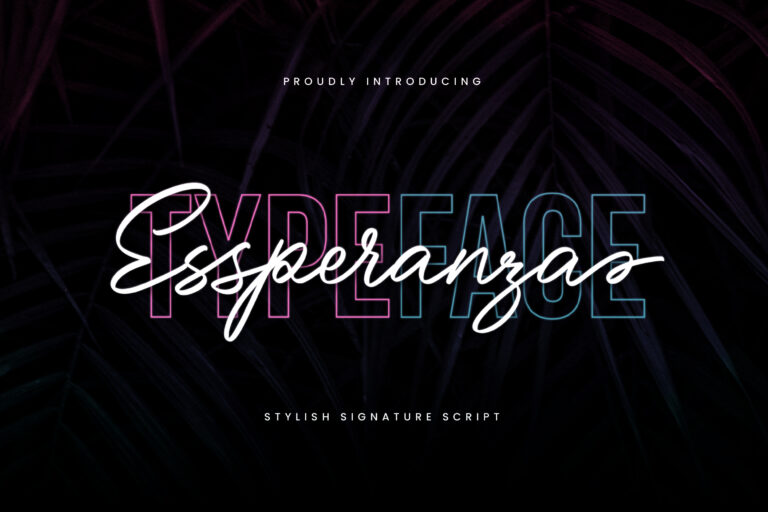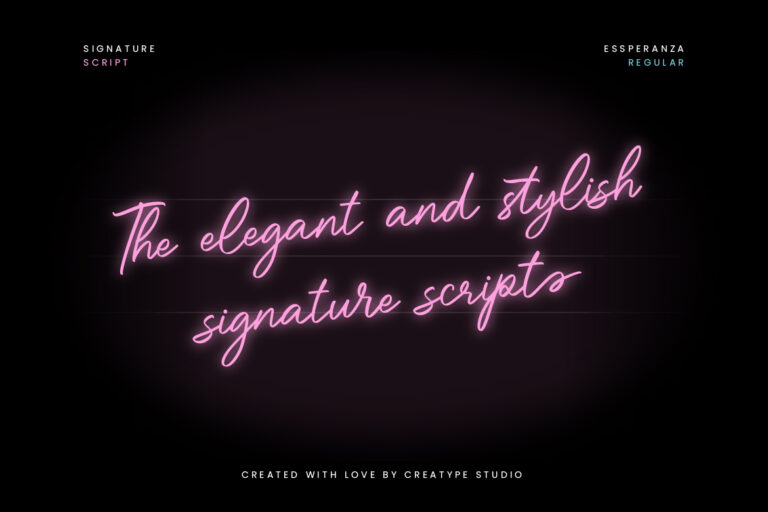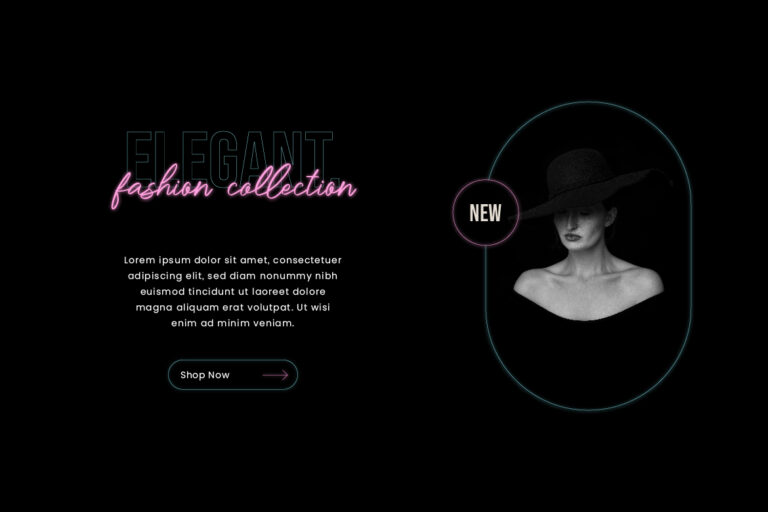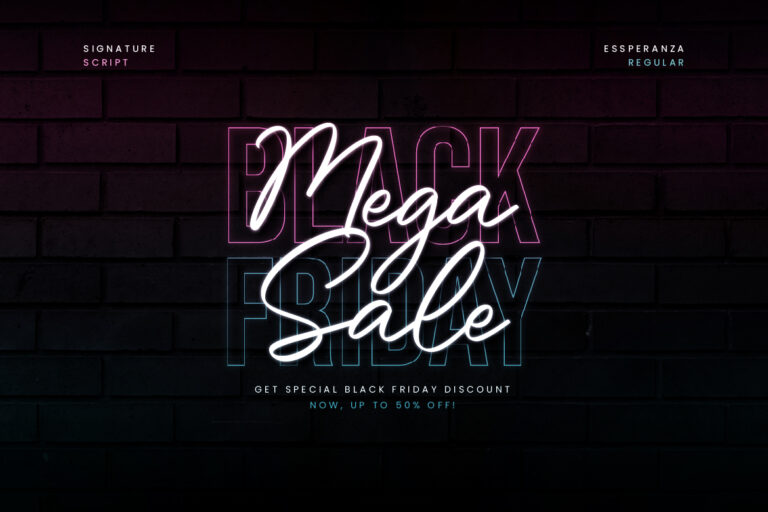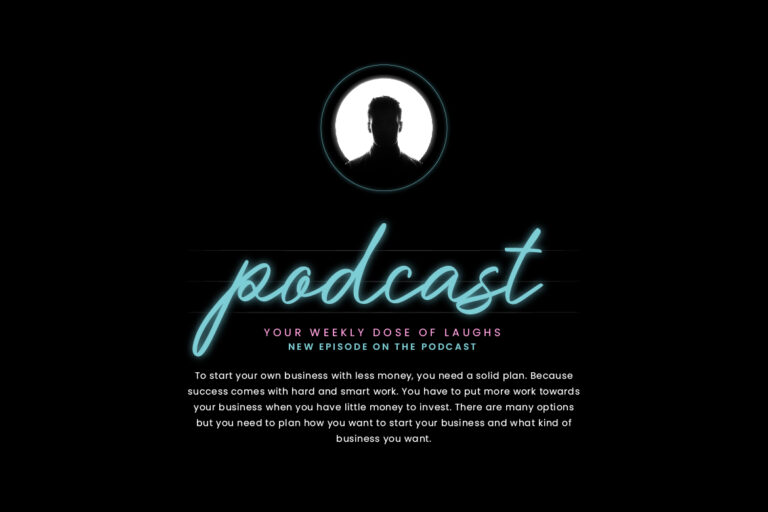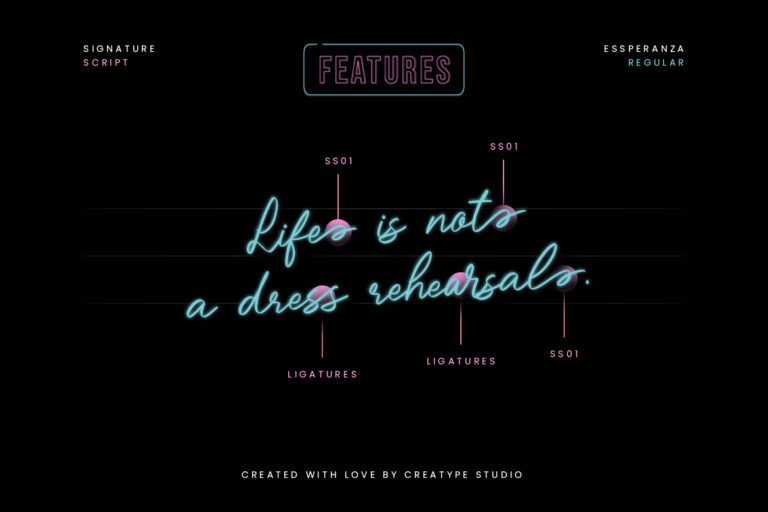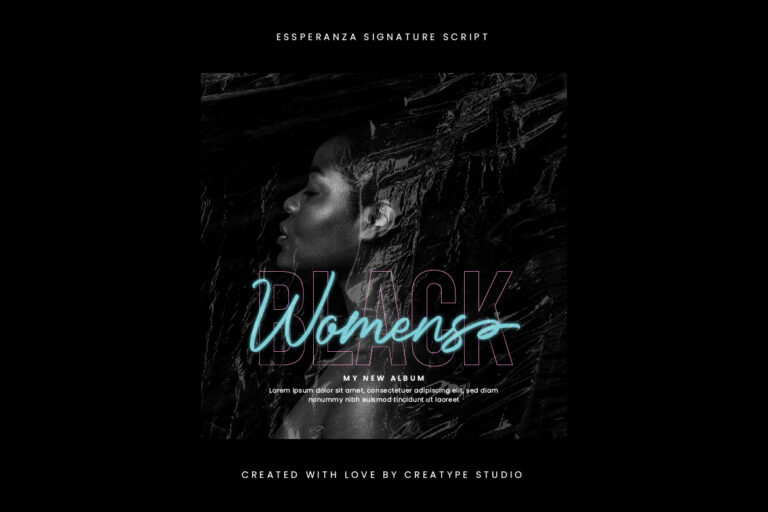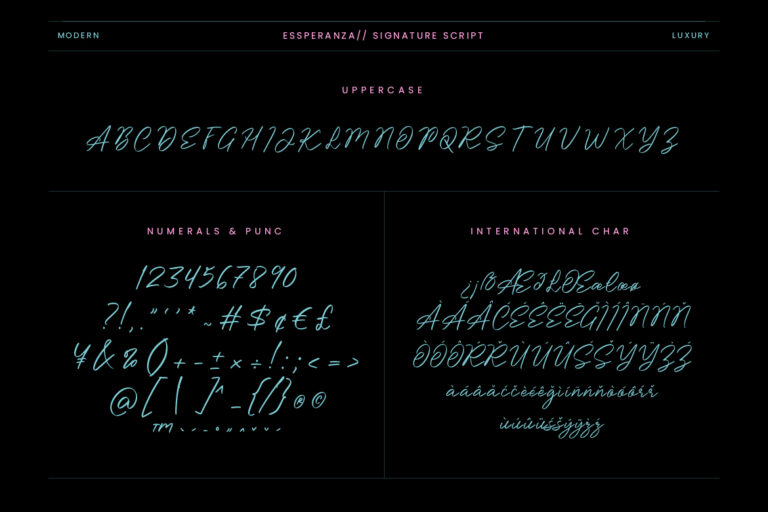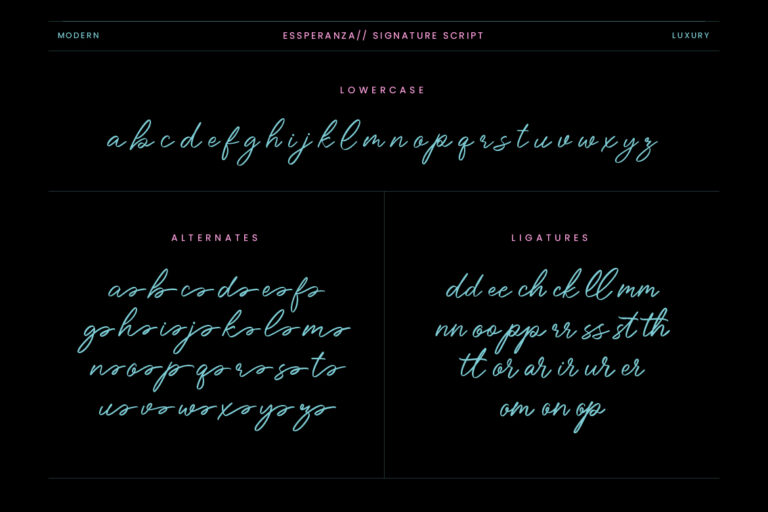
Essperanza Stylish Signature Script
Essperanza is a stylish signature script typeface – A new, fashionable and super cool handwritten script font that makes your product look even more attractive, of course. Essperanza is made as closely as possible with a handwritten script to make it look more natural and suitable for application in any media.
Essperanza Stylish Signature Script is perfect for branding projects, logo, wedding designs, social media posts, advertisements, product packaging, product designs, label, photography, watermark, invitation, stationery and any projects that need handwriting taste.